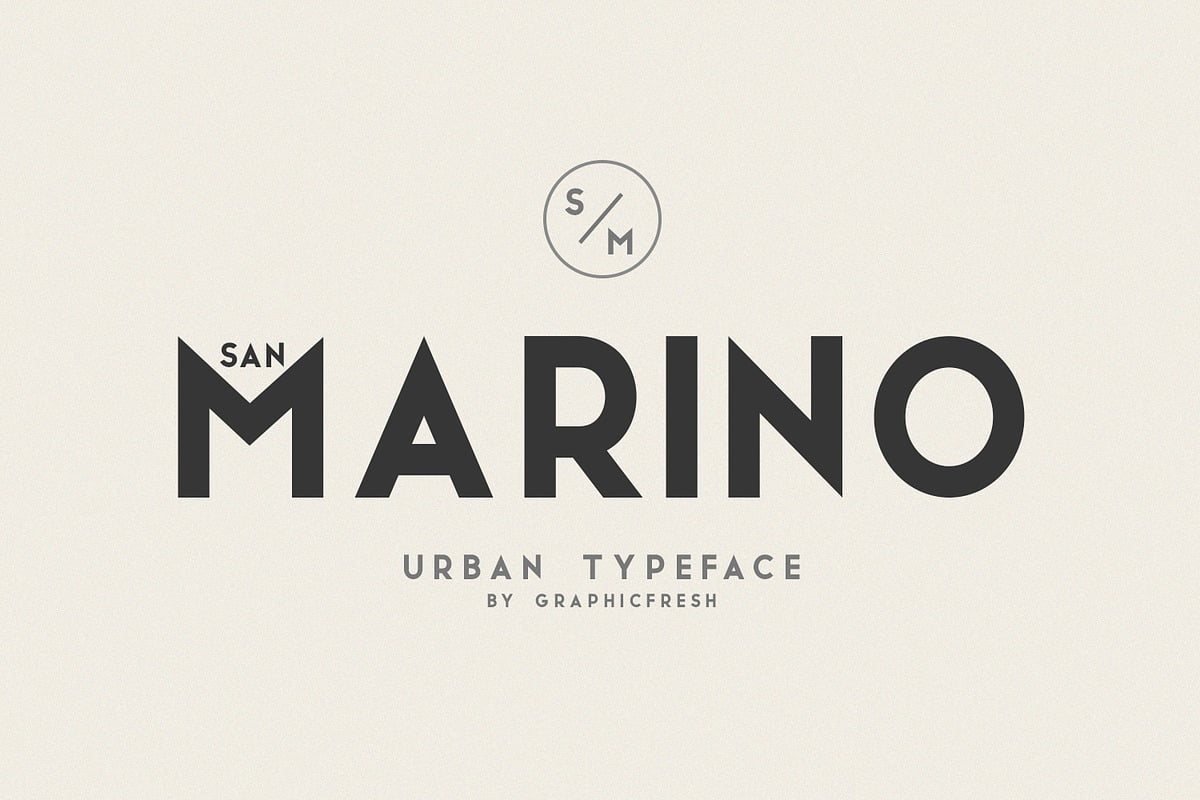
San Marino is the geometric sans serif font that brings modern elegance and urban style to any design project.
San Marino is an original sans serif typeface elevated with clean geometric shapes, projecting a strong sense of modernity, stylishness, and sophistication. Whether you're crafting logos, posters, branding materials, or editorial layouts, this font delivers bold impact with refined character.
- Regular — a clean, upright sans serif
- Italic — a sleek slanted variation
- Outline — a striking open-stroke version
- Outline Italic — combines both outline and italic styles
All styles feature full uppercase (ALL CAPS) character sets, lowercase characters, numerals, and a generous selection of symbols. Extended OpenType character support ensures compatibility with Western European and multilingual languages.